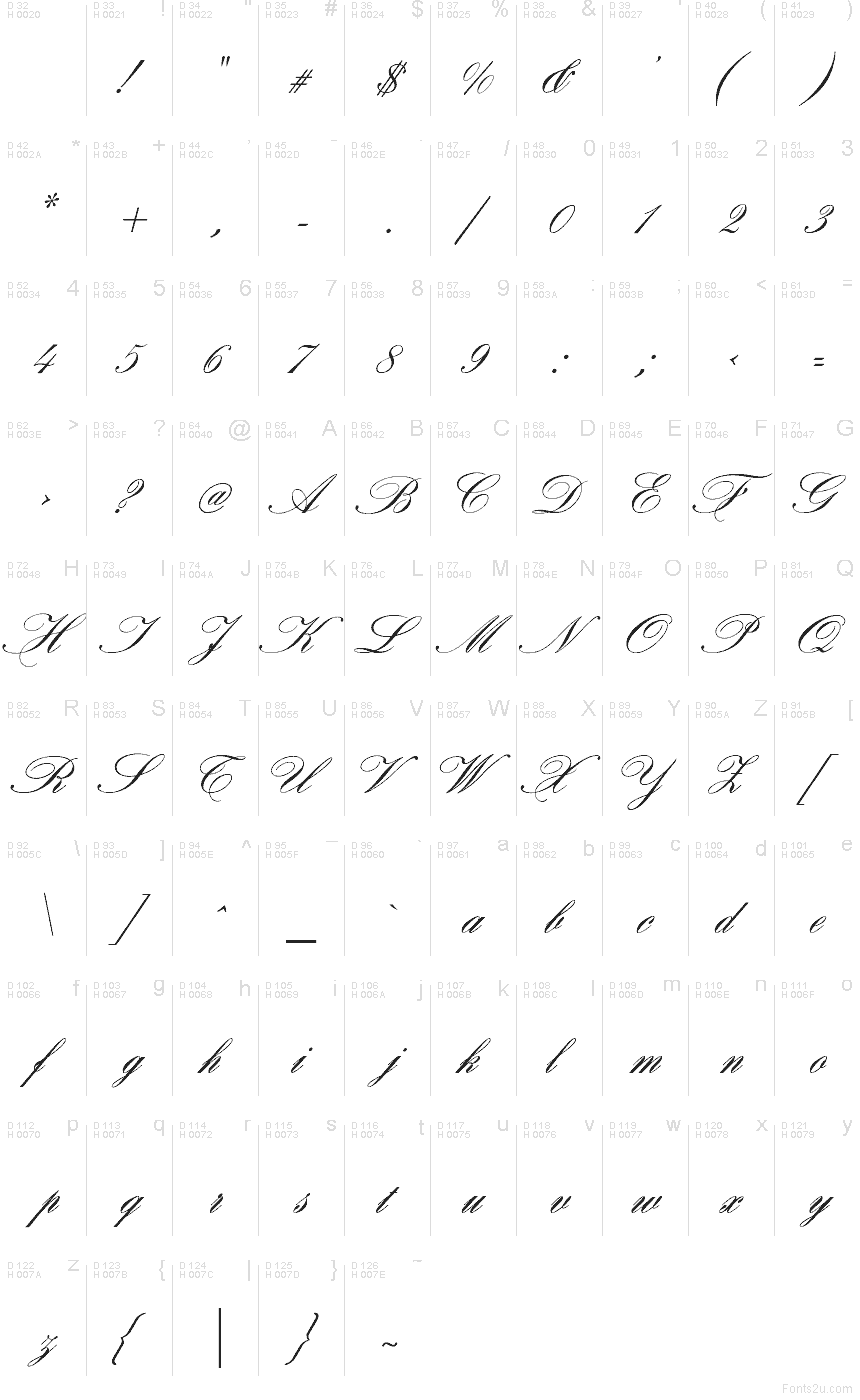
ClassiqueScript
Classique Script font by ClaudeP is a free calligraphy typeface that captures the sweep of traditional penmanship with a polished, almost engraved finish. Letters lean forward with a graceful slant, fine hairlines, and inky swells that feel like they were written in one confident motion. The spacing is tight but controlled, creating continuous ribbons of script that look lush without becoming messy or hard to read.
Using Classique Script, you can bring that refined, formal touch to wedding invitations, upscale branding, certificates, packaging for luxury goods, restaurant menus, or elegant social media graphics. This free font shines when used large for names and titles; pair it with a clean, understated serif or sans for body text to keep things readable while letting the script do the storytelling.